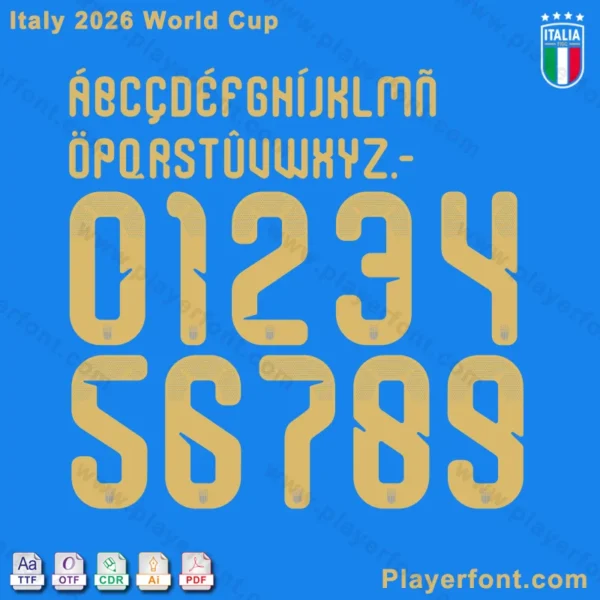
Italy 2026 World Cup Font Download – TTF, OTF & Vector Set
Italy 2026 World Cup font showing the full alphabet and number set in gold on a blue background.
Celebrate the Azzurri with the authentic typeface used for names and numbers on the Italy 2026 World Cup kits! This unique, stylish font captures the essence of Italian design and is a must-have for anyone looking to recreate the official look.
Why This Italy Font is Essential:
• Authenticity Guaranteed: This is the accurate and high-quality font style featured on the Italian national team’s shirts.
• Distinctive Look: The font showcases the modern, rounded design with internal detailing that makes it instantly recognizable on the pitch.